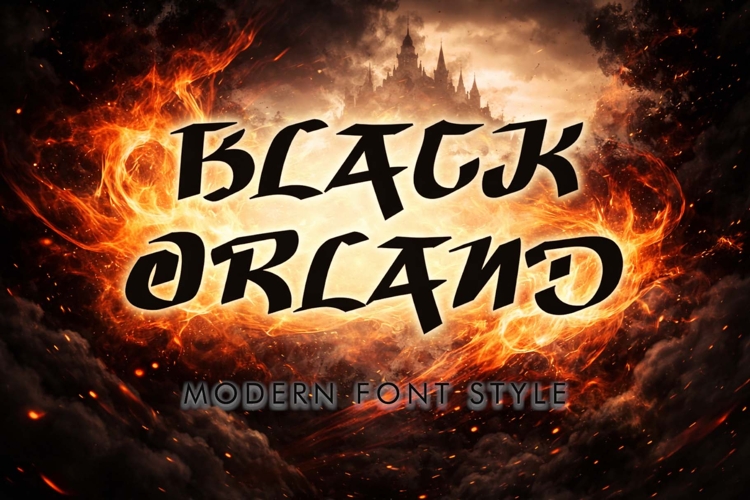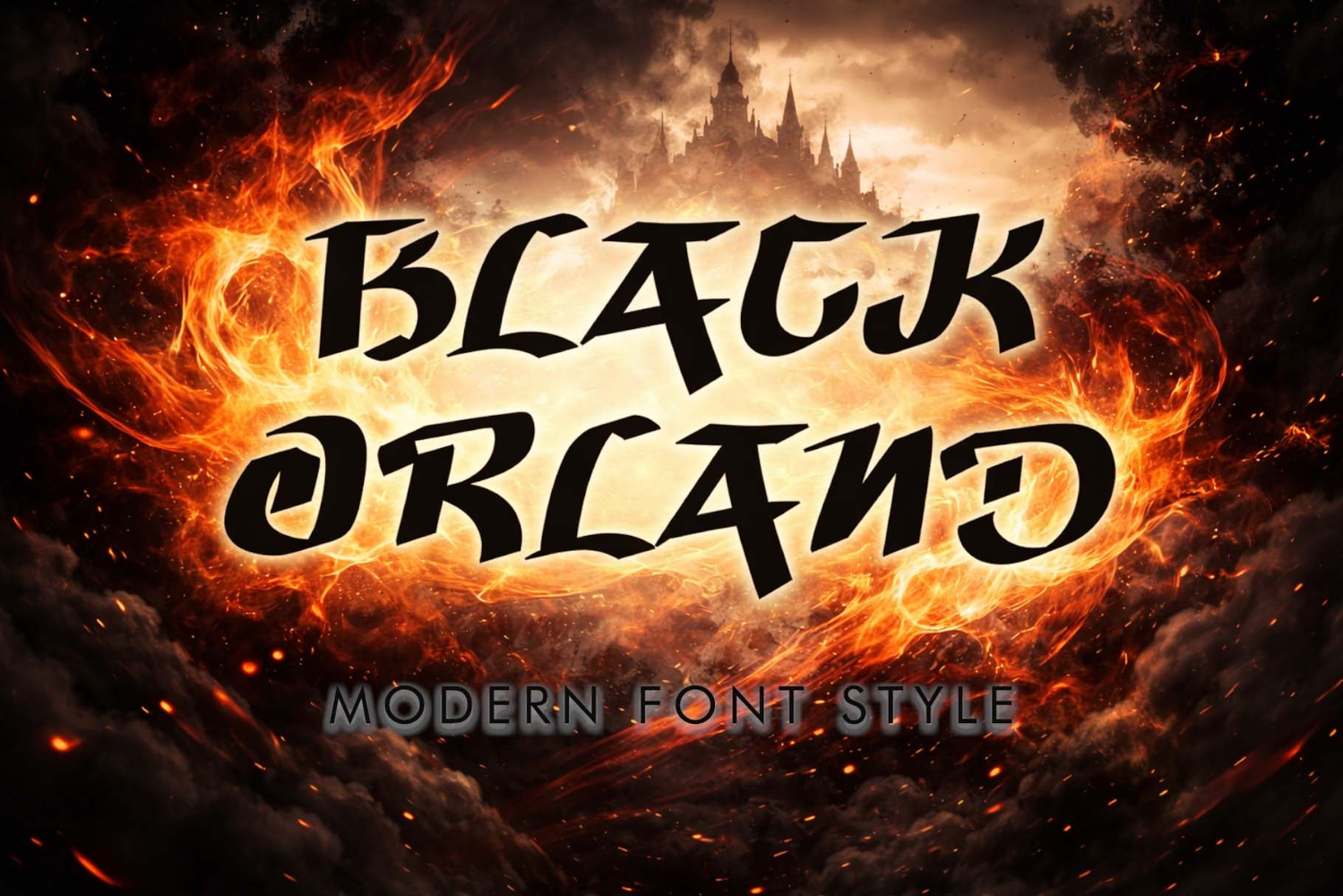
"Black Orland" is an elegant and modern blackletter font. It features uppercase and lowercase letters, numerals, punctuation, and multilingual support. It's perfect for action movie titles, Halloween, Christmas, Easter, spring, and summer, banners, branding, stickers, logos, patriotic text, back to school text, business branding, screen printing, t-shirt designs, and more.